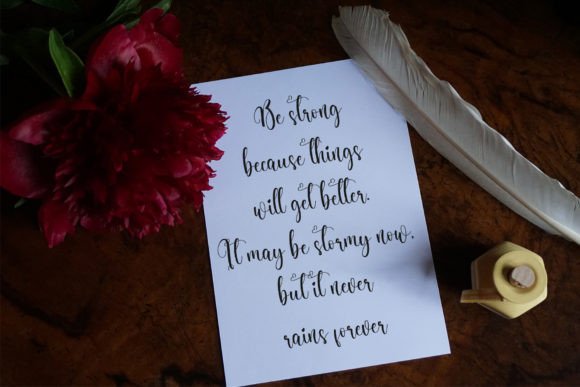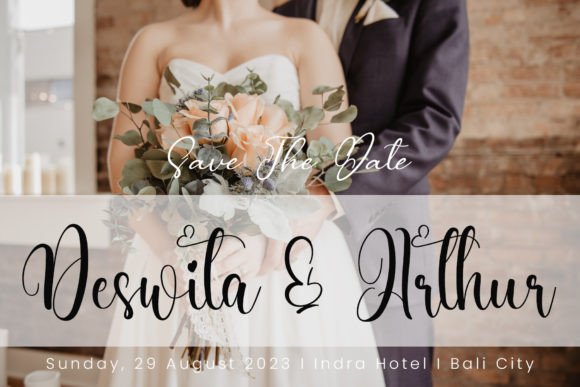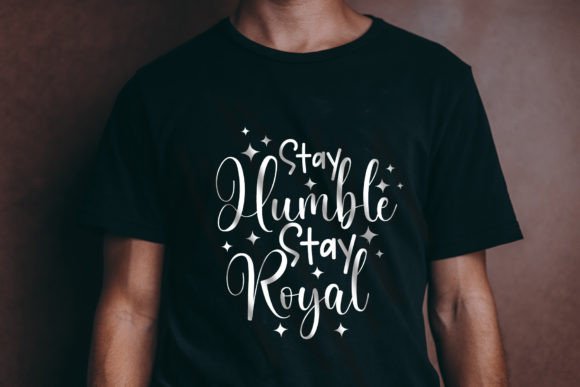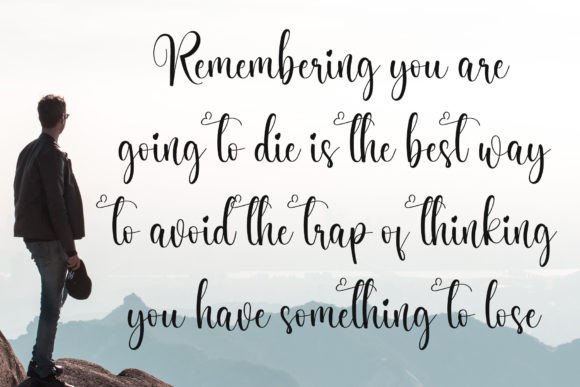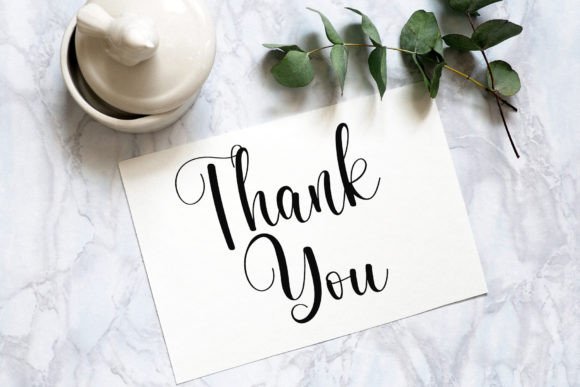
The Quest for the Perfect Font: Discovering Augustine
I still remember the frustration of working on a design project, hours spent crafting the perfect layout, only to be held back by a font that just didn’t feel right. My client wanted a touch of elegance, something that would elevate their brand without feeling too over-the-top. I’ve been there, done that, and got the t-shirt – and that’s why I’m excited to share with you a stylish handwritten font that has become a game-changer in my design toolkit: Augustine.
A First Impression: What Makes Augustine Special
Augustine is a stylish handwritten font with a contemporary atmosphere and impeccable form, inspired by timeless classic calligraphy. Its balanced and varied design makes it perfect for enhancing the beauty of your projects. Whether you’re a designer, crafter, or creative hobbyist, this font is sure to impress.
So, what do I love about Augustine? Here are a few highlights:
- ✨ Contemporary yet classic: Augustine strikes the perfect balance between modern style and timeless elegance.
- ✅ Highly legible: Even at smaller sizes, this font remains clear and easy to read.
- 💫 Versatile: From headings to body text, Augustine adapts beautifully to different design needs.
Of course, no font is perfect. Here are a few quirks to keep in mind:
- 🤔 Limited availability of certain characters: While the font has a wide range of glyphs, some special characters might require a bit of creative substitution.
- ⚠️ Not ideal for very long documents: While legible, Augustine’s elegant style might not be the best fit for extensive reading materials.
The Story Behind Augustine
Augustine was inspired by the classic calligraphy of the past, with a modern twist. Its designer aimed to create a font that would bring elegance and sophistication to any project, without feeling too traditional or restrictive. The result is a versatile, stylish font that suits a wide range of design needs.
| Is Augustine suitable for body text? | While Augustine is highly legible, it’s best used for headings and short paragraphs. For longer texts, a more traditional serif font might be more suitable. |
| Does Augustine support multiple languages? | Augustine includes a range of glyphs and supports several languages. Check the font’s documentation for a full list of supported languages. |
Augustine is more than just a font – it’s a design tool that can elevate your projects with its elegant, contemporary style. Whether you’re designing for a client or working on a personal project, this stylish handwritten font is sure to make a lasting impression.